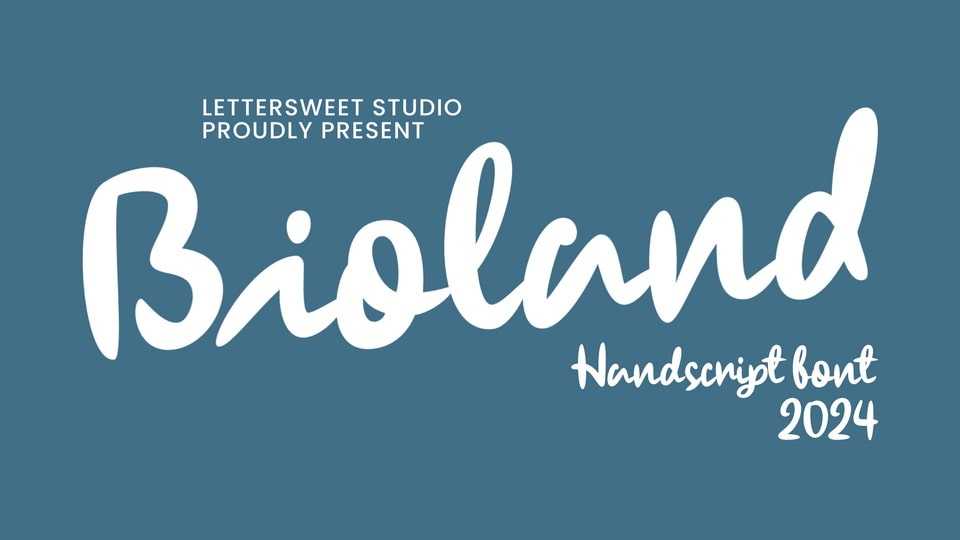
Download Bioland font, a beautiful handwritten script, created with genuine hand strokes. With its fluidity and grace, Bioland is set to bring a natural touch to your creative pursuits.